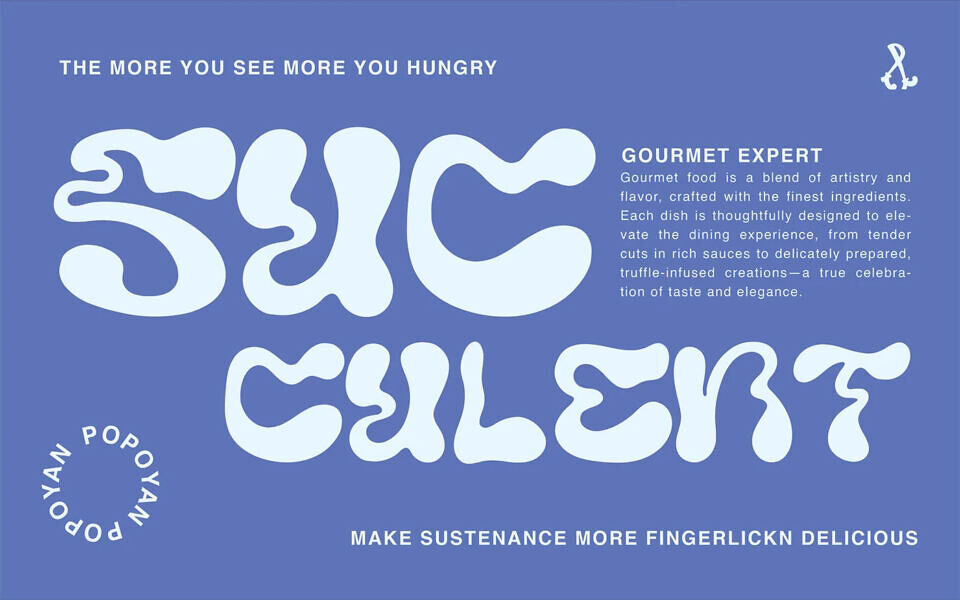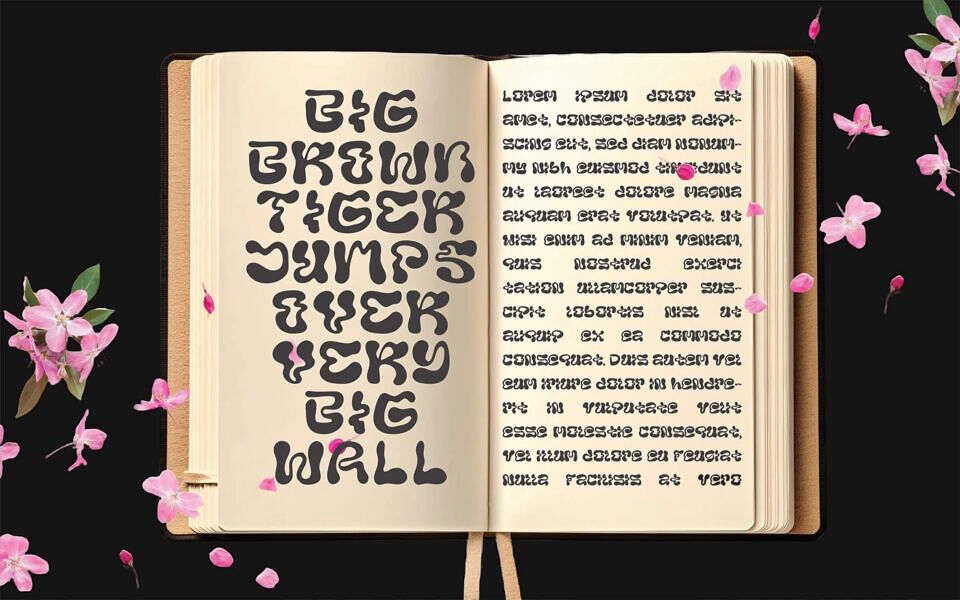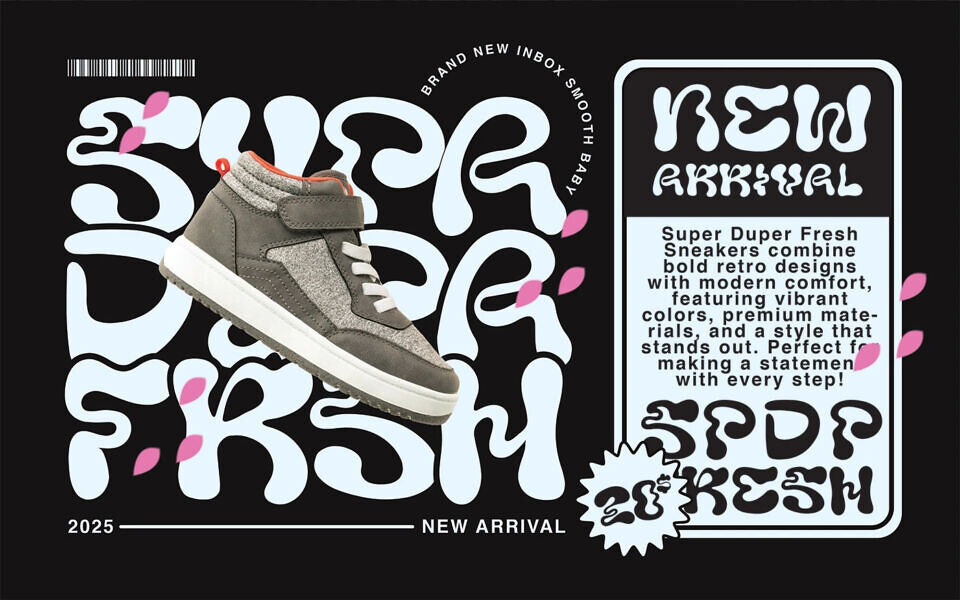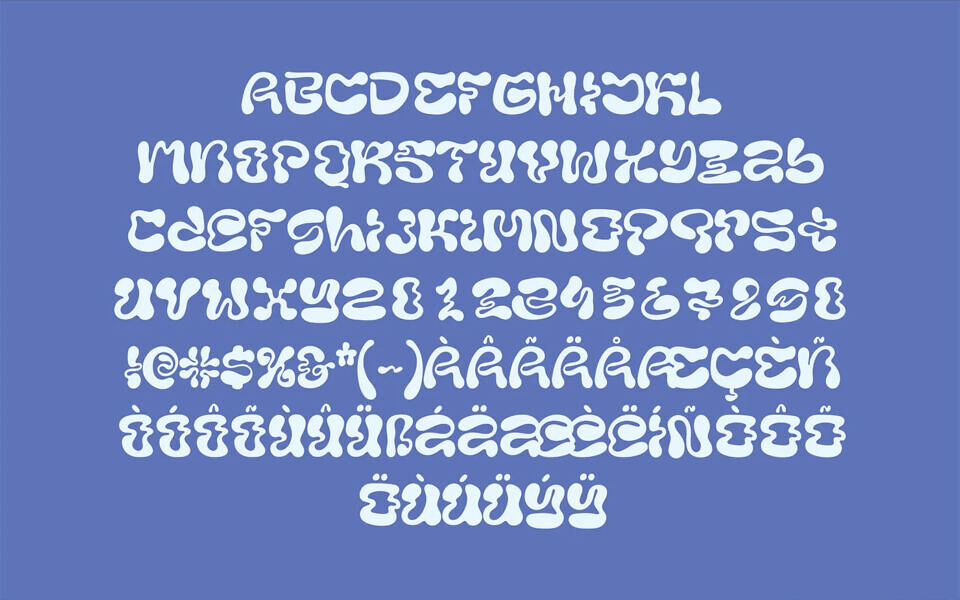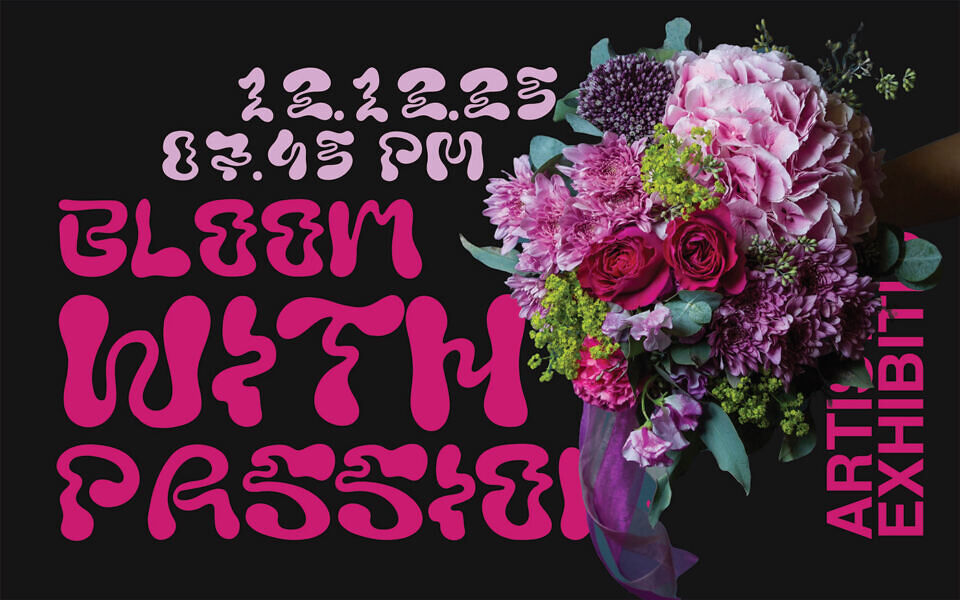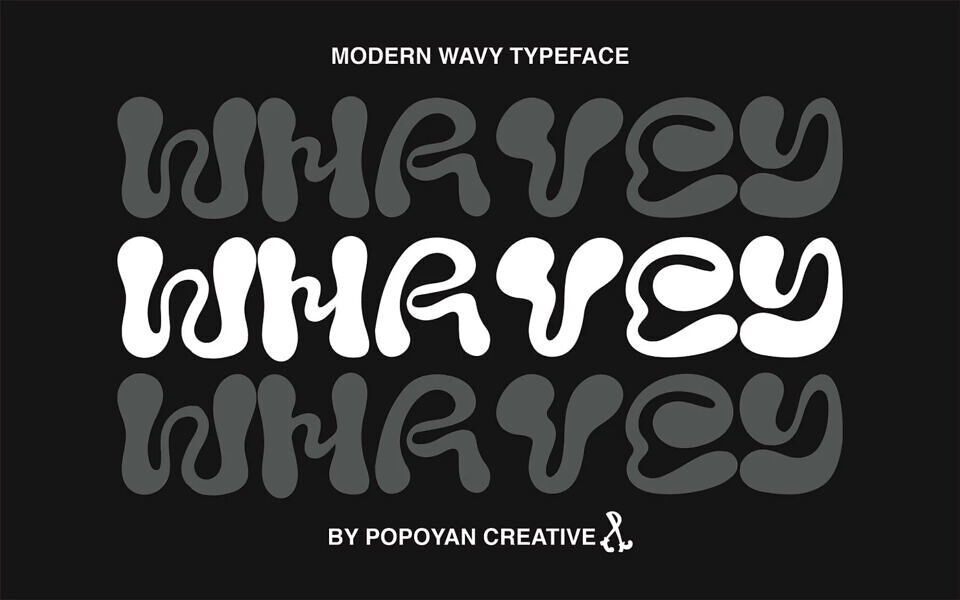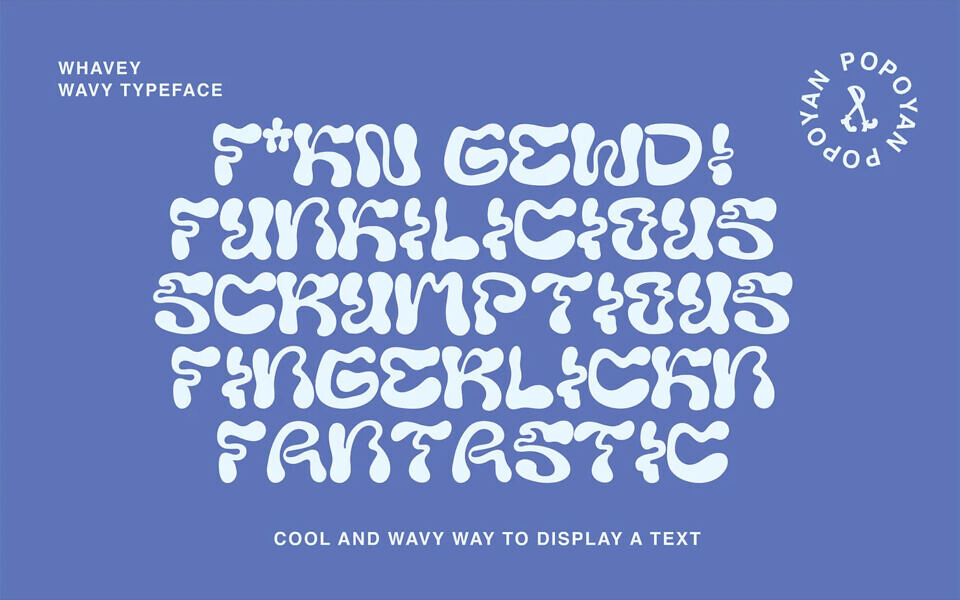
Whavey Font
Whavey Font” is a quirky, wave-inspired typeface that brings a fun, dynamic flair to any design project. Featuring fluid, flowing curves that mimic the motion of waves, this playful font is perfect for adding a touch of creativity to your work.
Whether you’re designing logos, posters, invitations, or digital media, Whavey’s unique style makes it ideal for eye-catching headlines and attention-grabbing titles. Its whimsical and energetic design ensures your text stands out with personality and charm.
Easy to use, yet full of character, Whavey Font is perfect for anything that needs a bold, lively, and modern touch. Let the waves of creativity flow with Whavey!